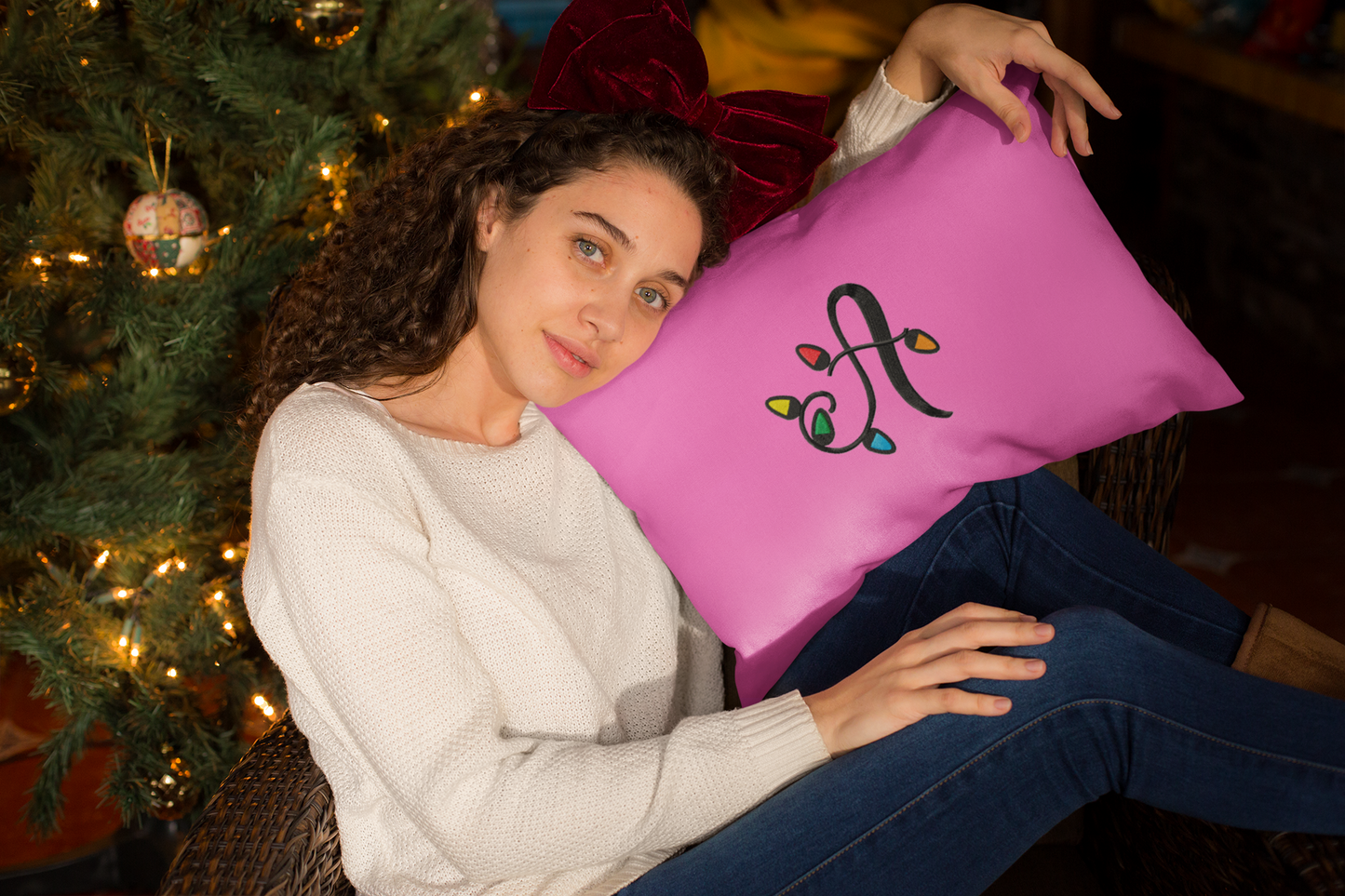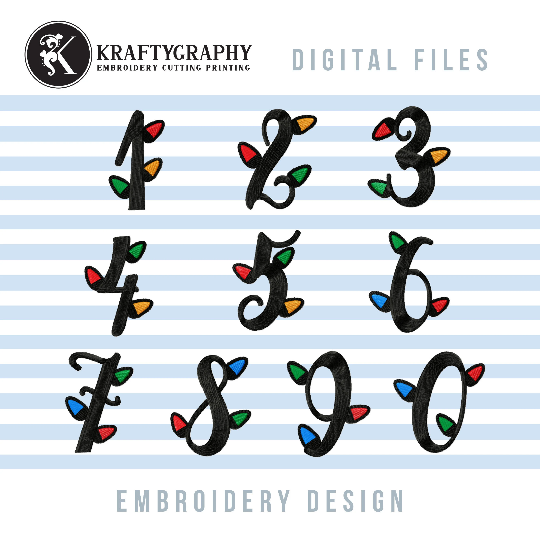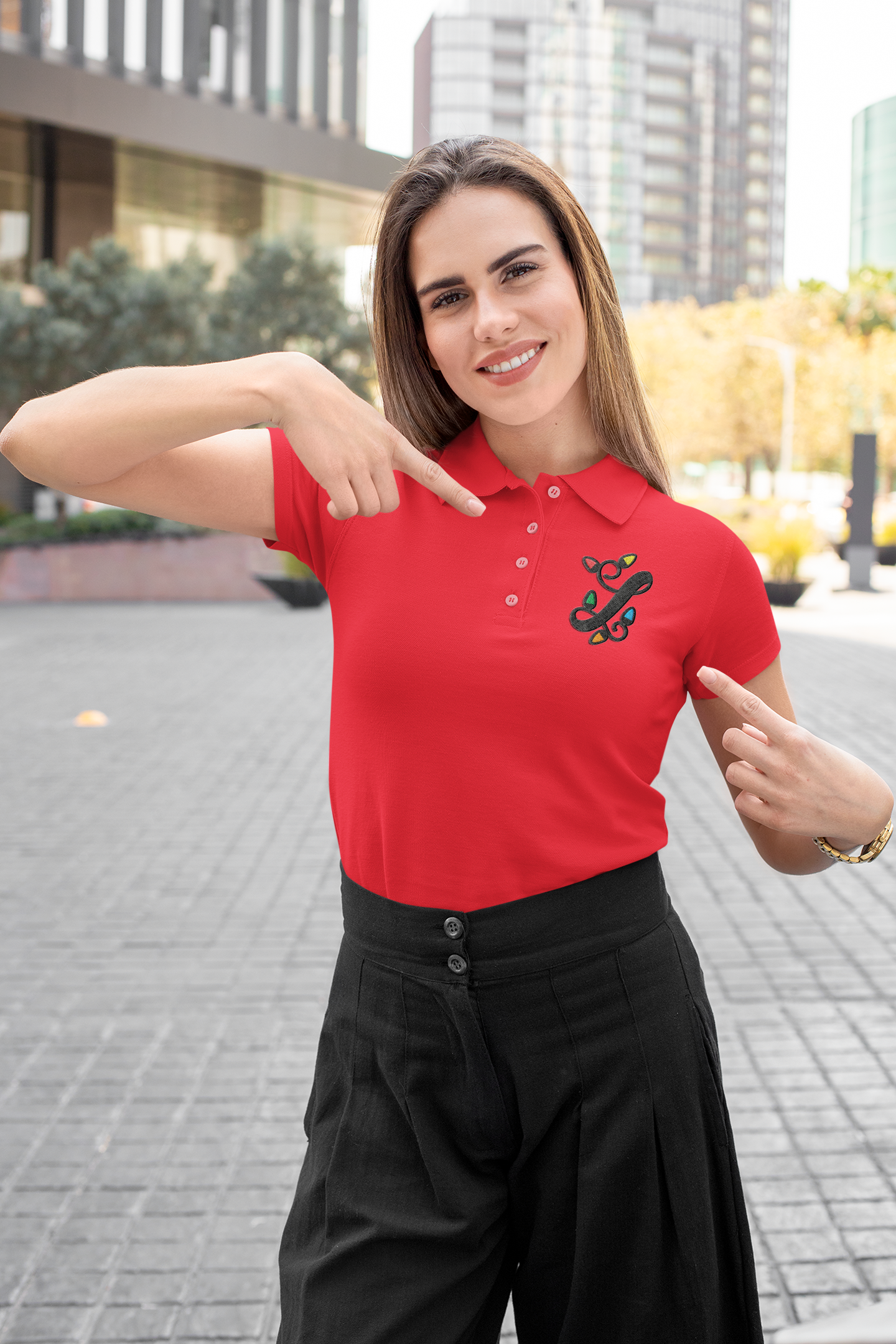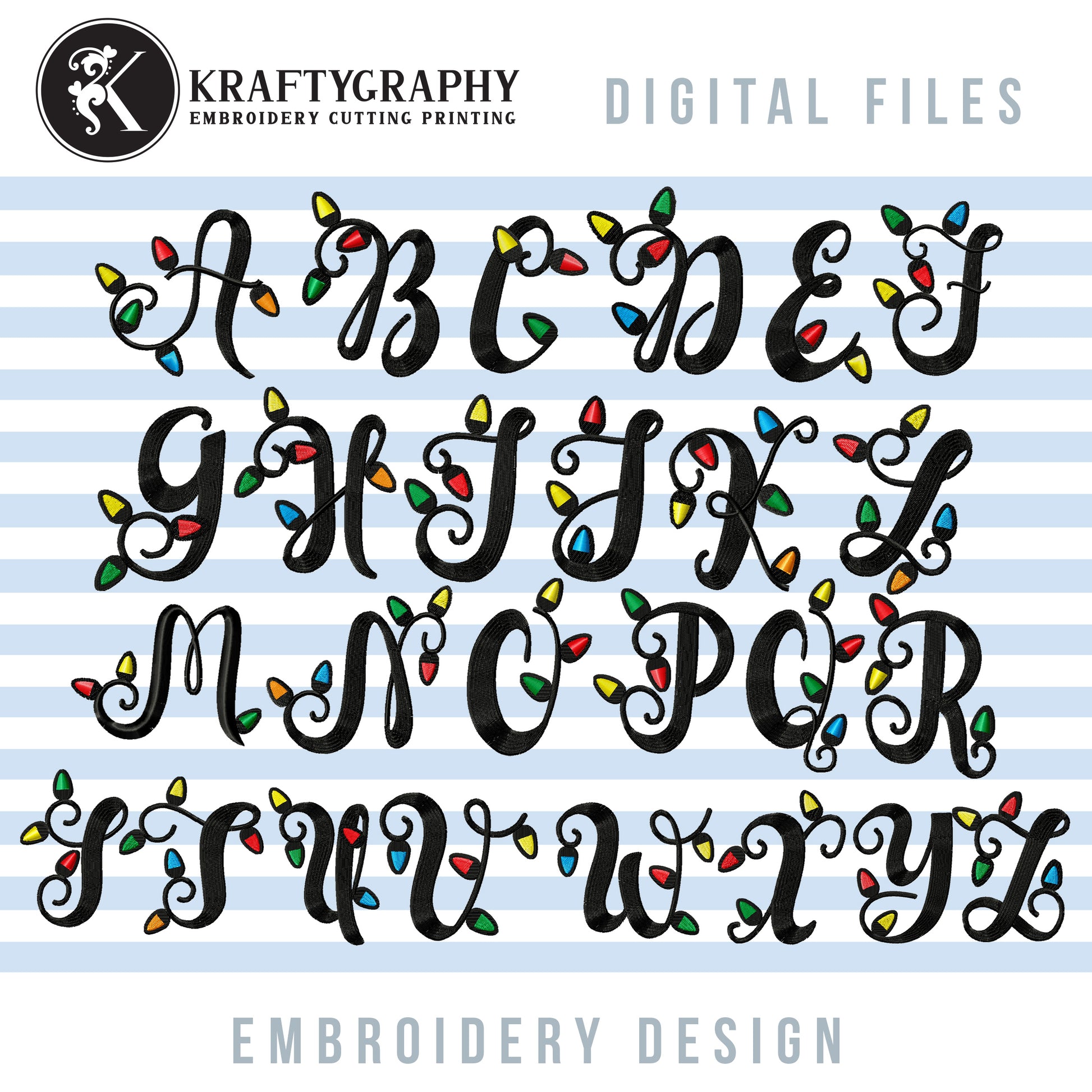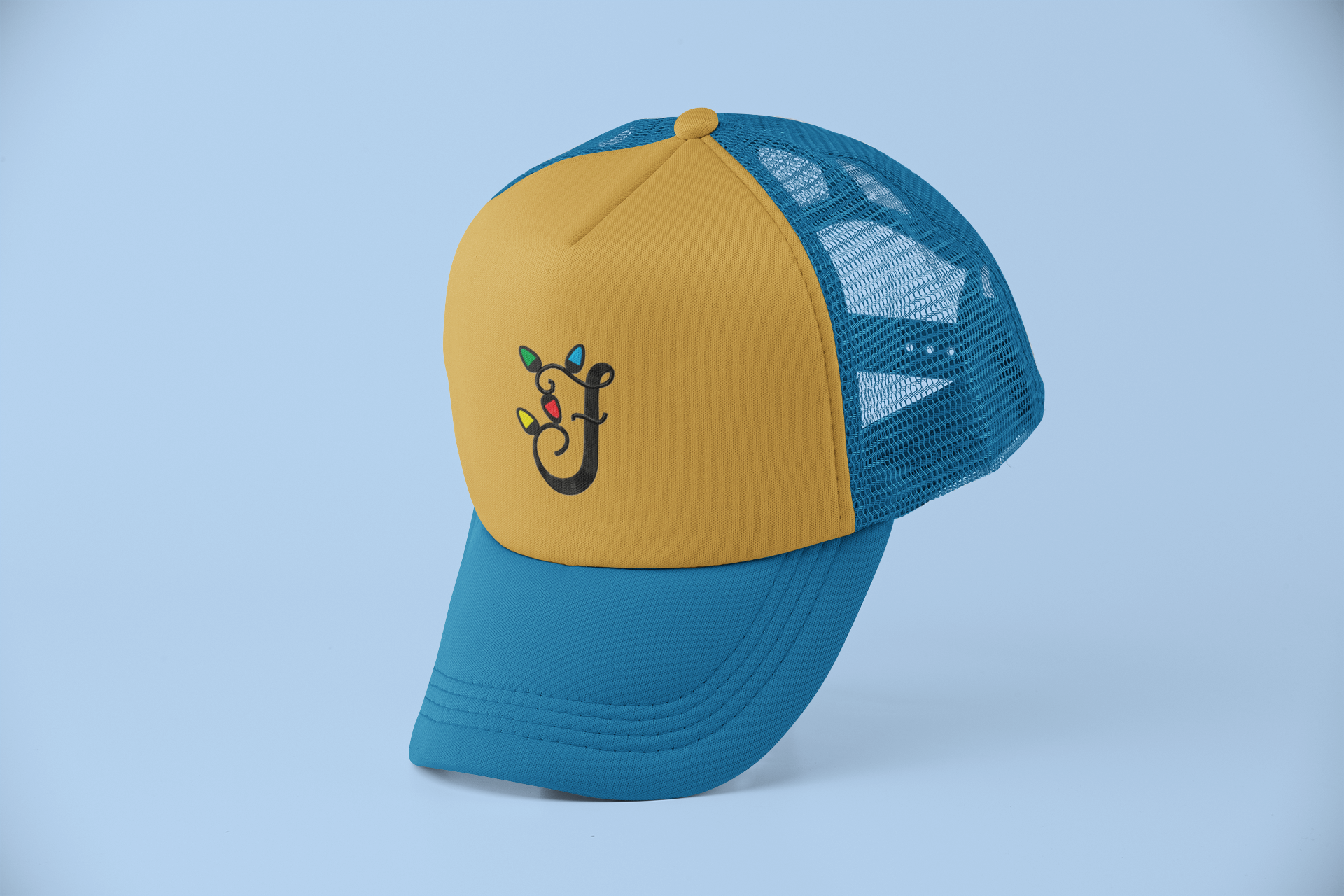
Christmas Embroidery font with decorated capital letters with Christmas lights for monogram frames. Great for created embroidered crafts for Christmas ornaments, home decorations, baby clothing, shirts, towels and more